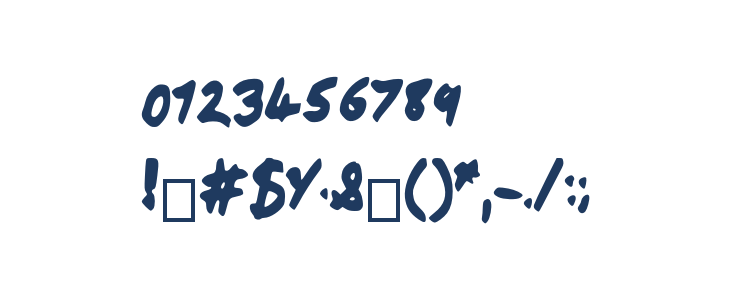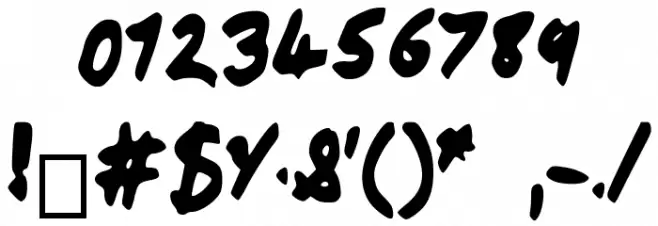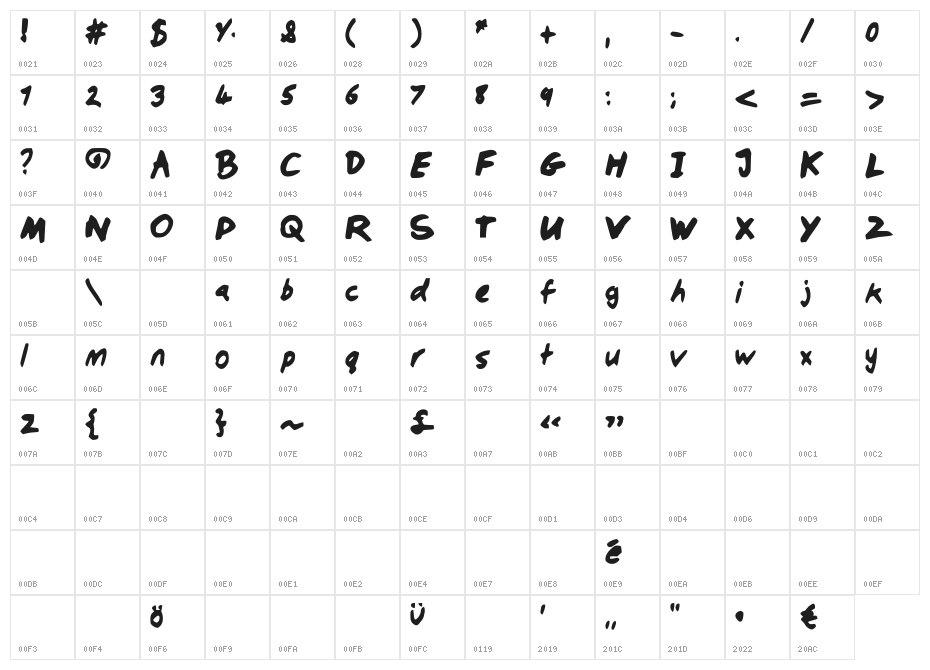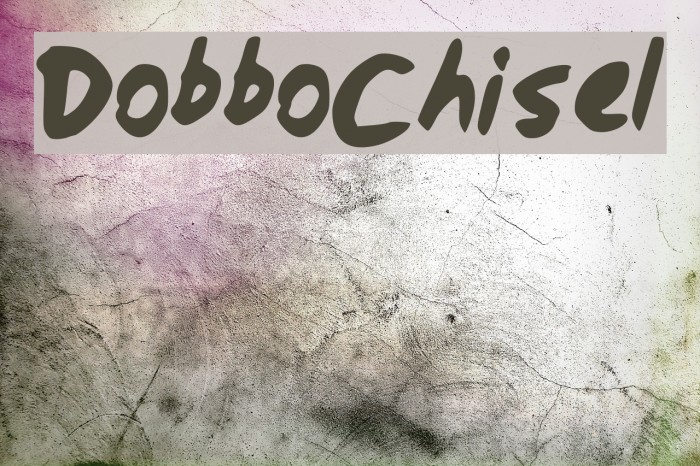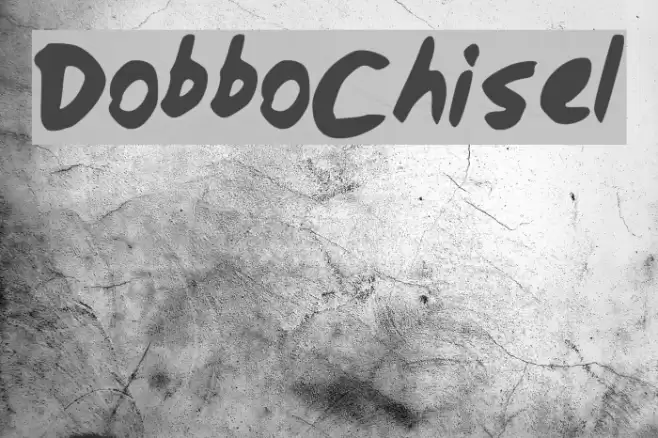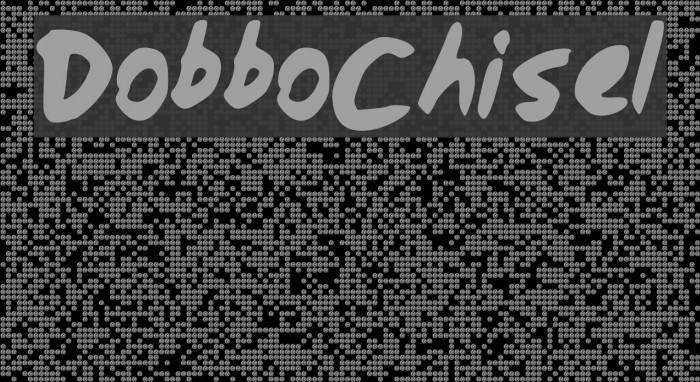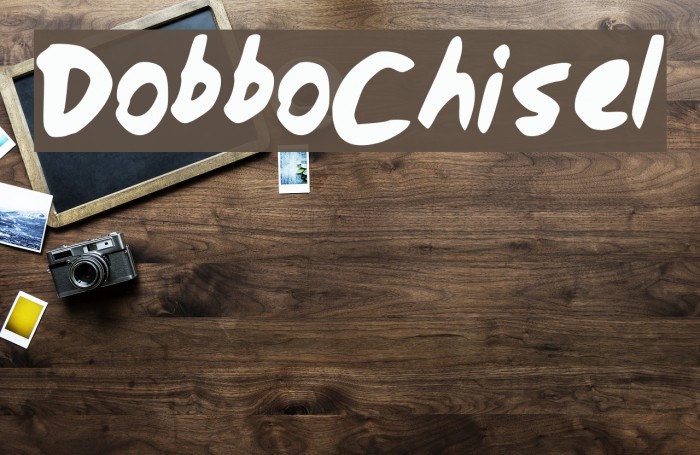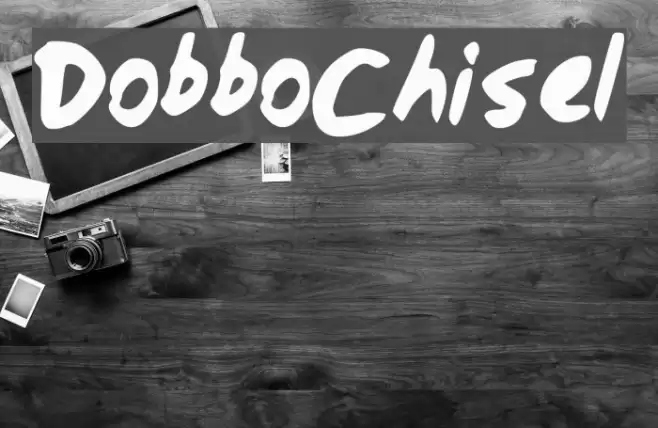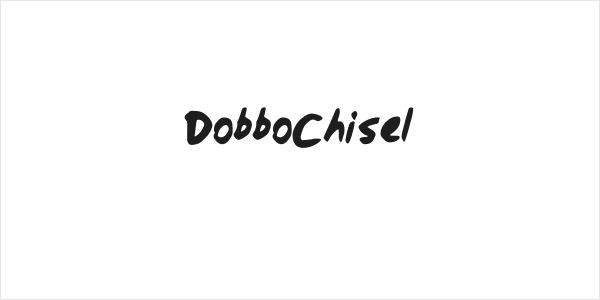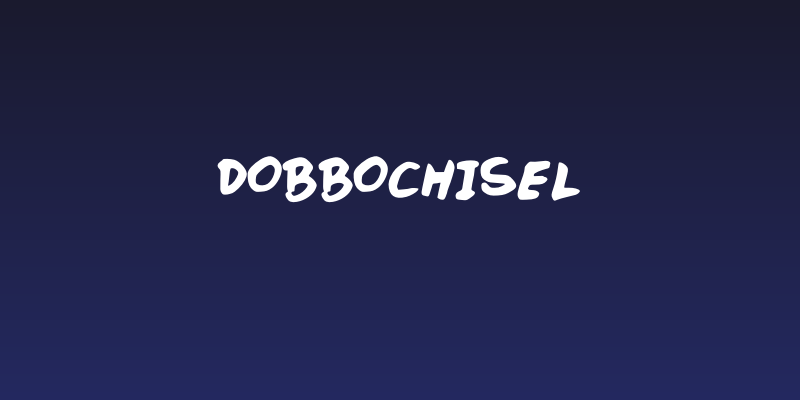
DobboChisel Font
DobboChisel Description
This font exhibits a bold and dynamic handwritten style, characterized by its thick, rounded strokes and playful, energetic appearance. The letters are slightly slanted, giving a sense of movement and fluidity. The uppercase and lowercase letters maintain a consistent style, with a casual and informal feel. The numbers and special characters follow the same aesthetic, ensuring a cohesive look across all elements. The overall impression is one of creativity and spontaneity, making it suitable for projects that require a personal touch.
| Proposed Projects | Ideal for greeting cards, invitations, posters, and branding projects that require a personal and creative touch. |